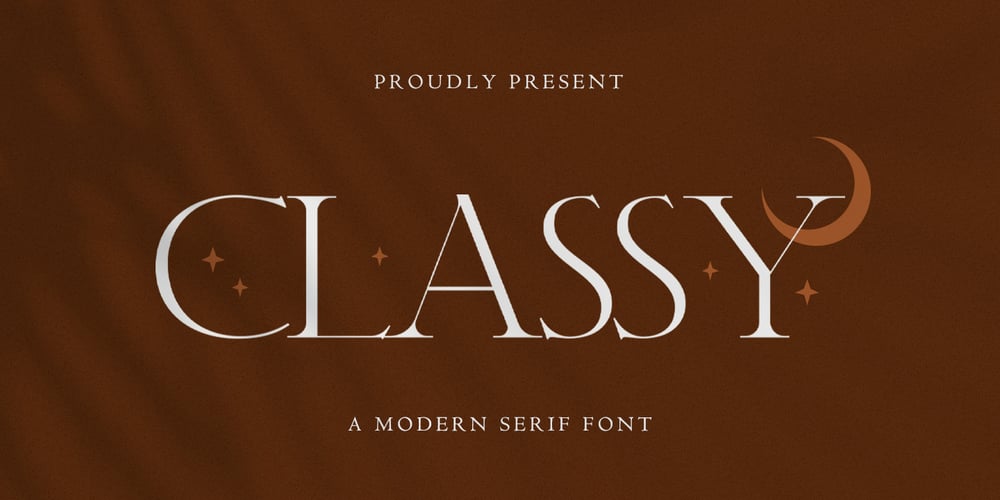
Classy Font Family was designed by Hilmius Akbar and published by Typefactory. Classy contains 1 styles and family package options. Classy is a modern serif font, that features a simple and minimalist feel.This font will brighten up each of your designs. The only limit is your imagination!